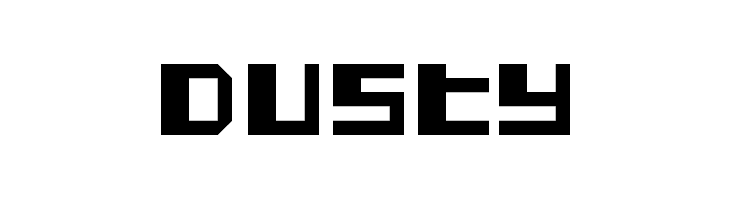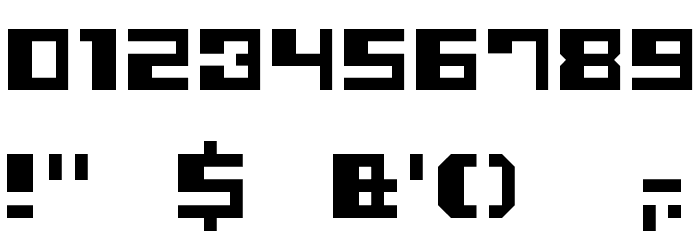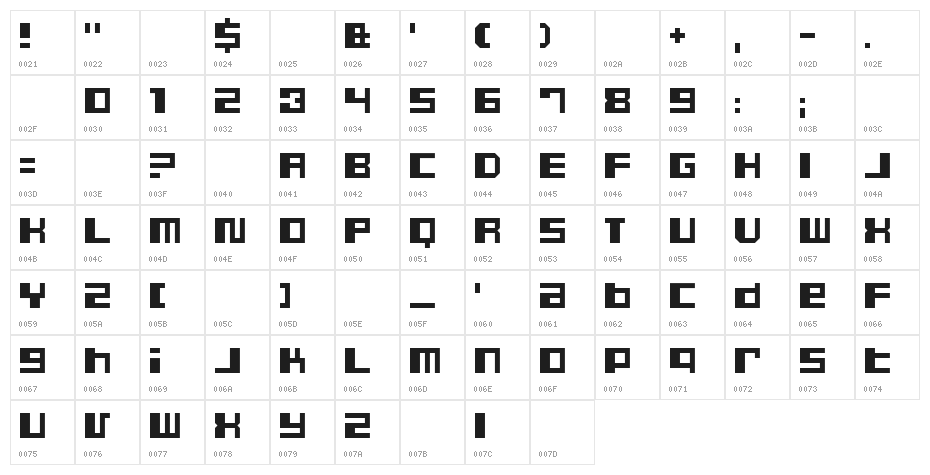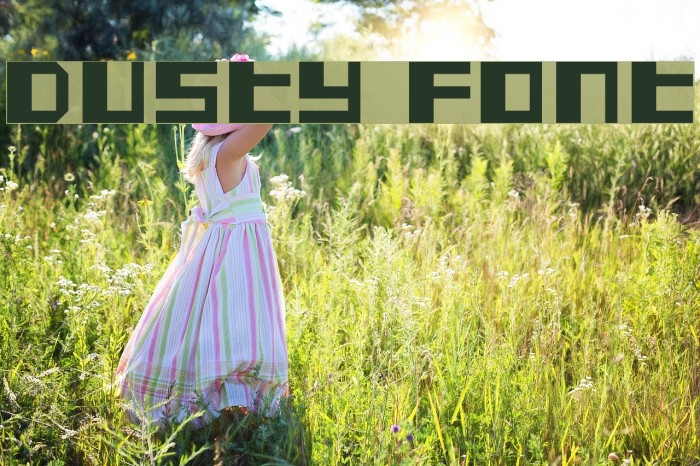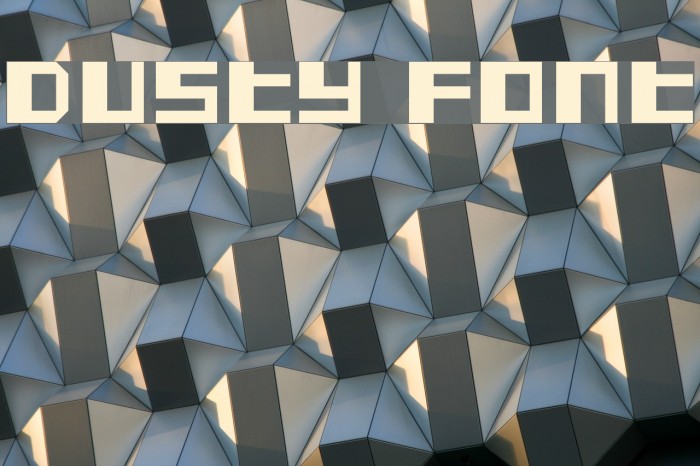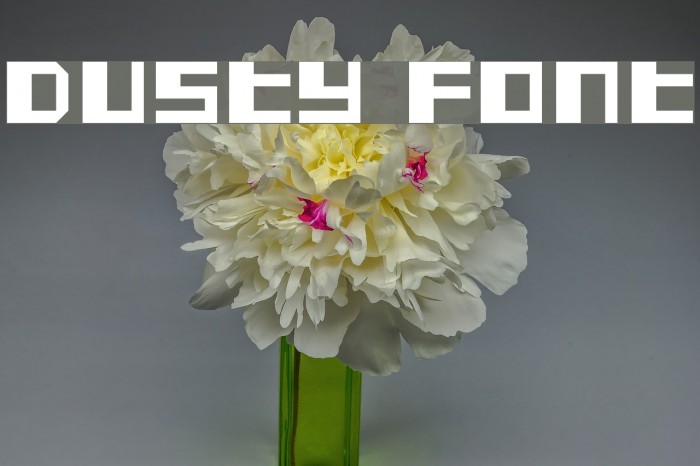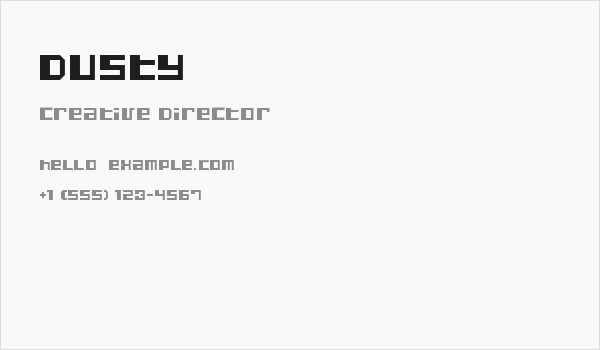
Dusty Font
Dusty Description
This font features a bold, geometric design with a strong, blocky appearance. Each character is constructed with sharp angles and straight lines, giving it a futuristic and digital feel. The uppercase and lowercase letters maintain a consistent height, creating a uniform look across the text. The numerals and special characters are designed to match the angular style of the letters, ensuring a cohesive appearance. This font is highly legible and impactful, making it suitable for attention-grabbing designs.
| Proposed Projects | Ideal for technology-themed projects, video game titles, posters, and branding that requires a modern, digital aesthetic. |